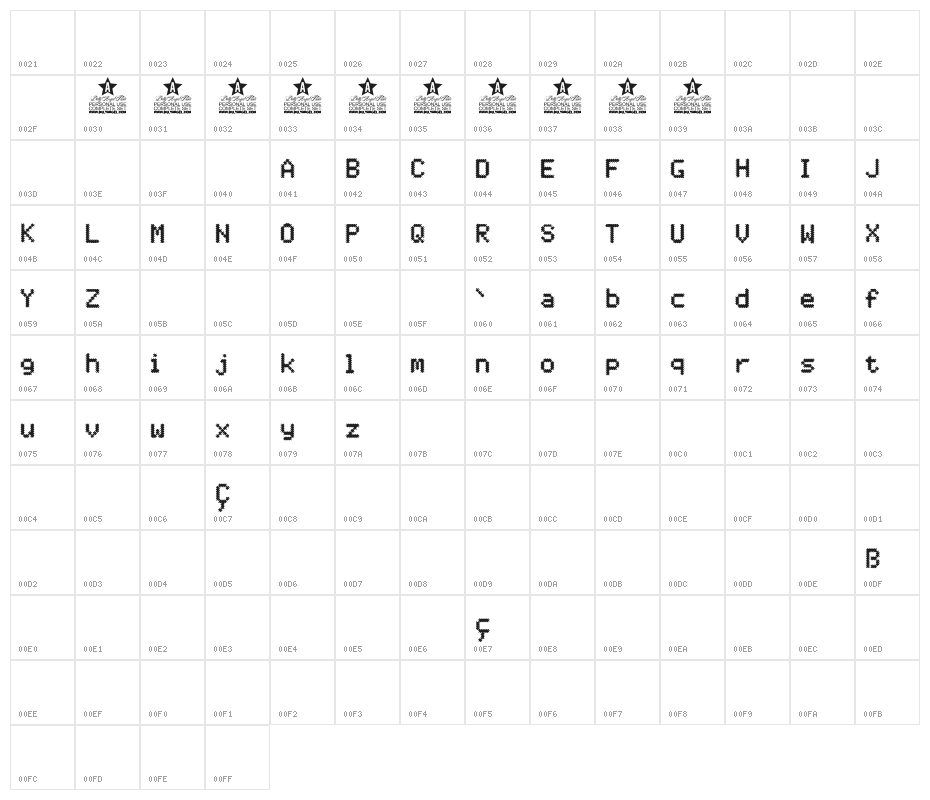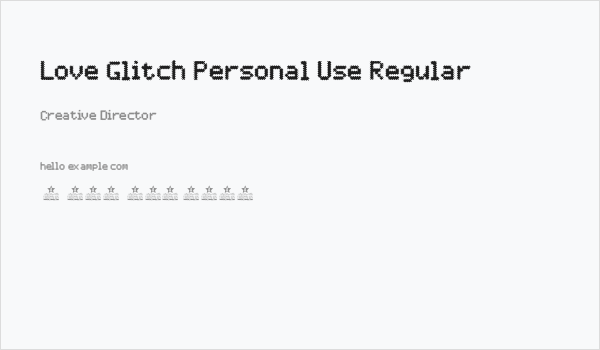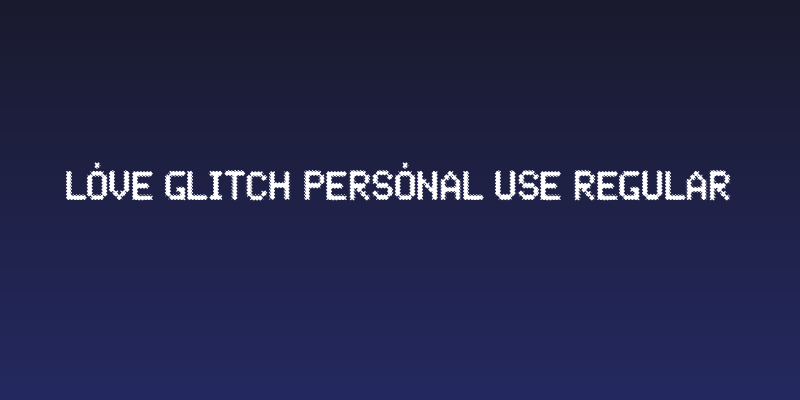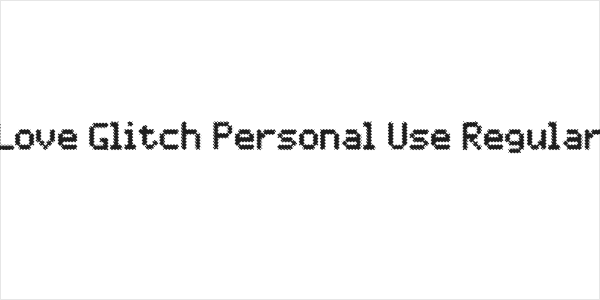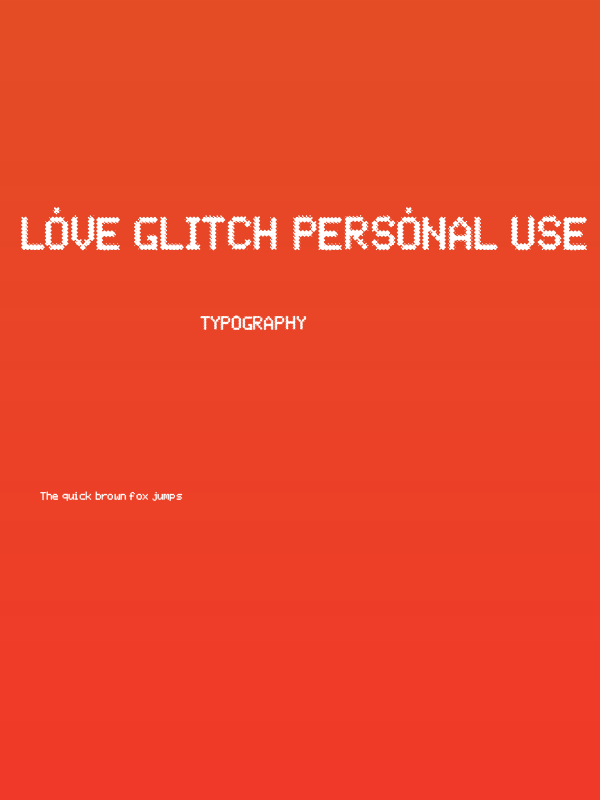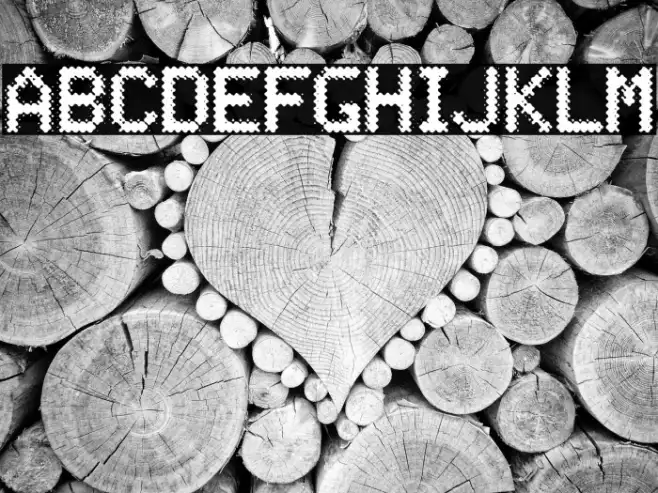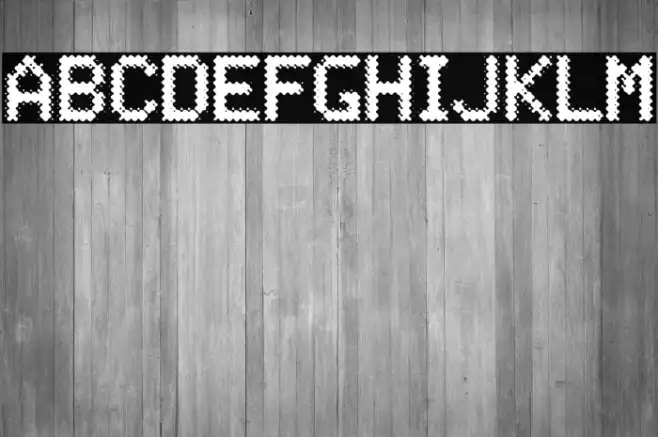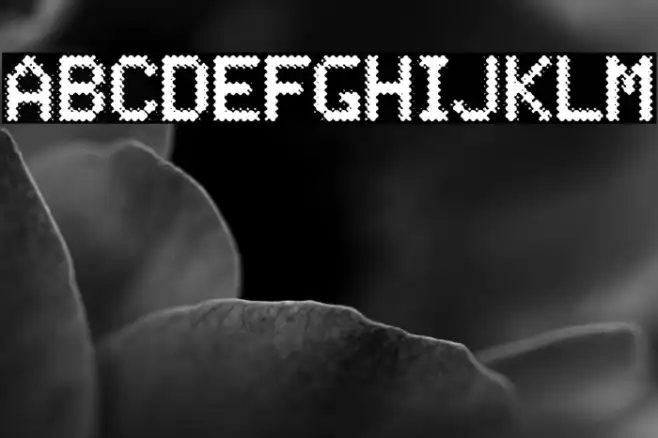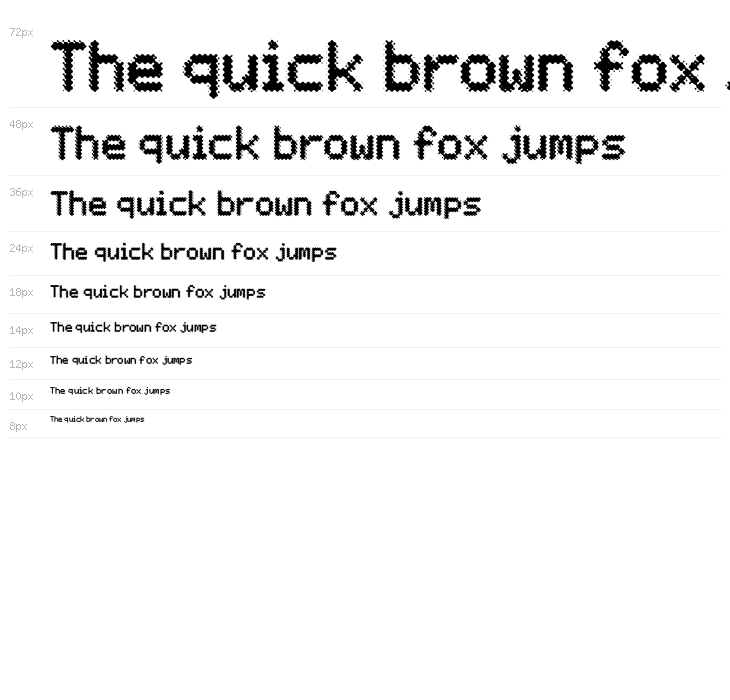
Love Glitch Personal Use Regular Font
Love Glitch Personal Use Regular Description
This font features a unique, pixelated design that gives it a digital, glitch-like appearance. The characters are composed of small, square blocks that create a jagged, fragmented look, reminiscent of retro video game graphics or digital art. The uppercase and lowercase letters maintain a consistent style, with each character appearing as if it is constructed from a grid of pixels. This design choice gives the font a distinctive, modern edge while also evoking a sense of nostalgia. The font is bold and eye-catching, making it suitable for projects that require a strong visual impact.
| Proposed Projects | Ideal for digital art, video game graphics, posters, and any project seeking a retro or tech-inspired aesthetic. |